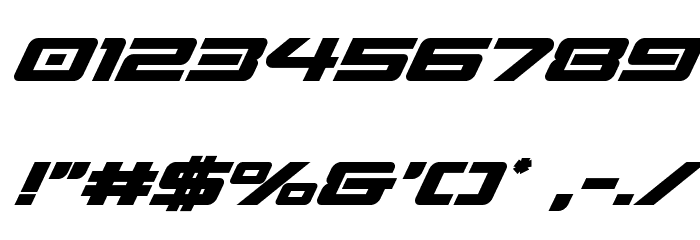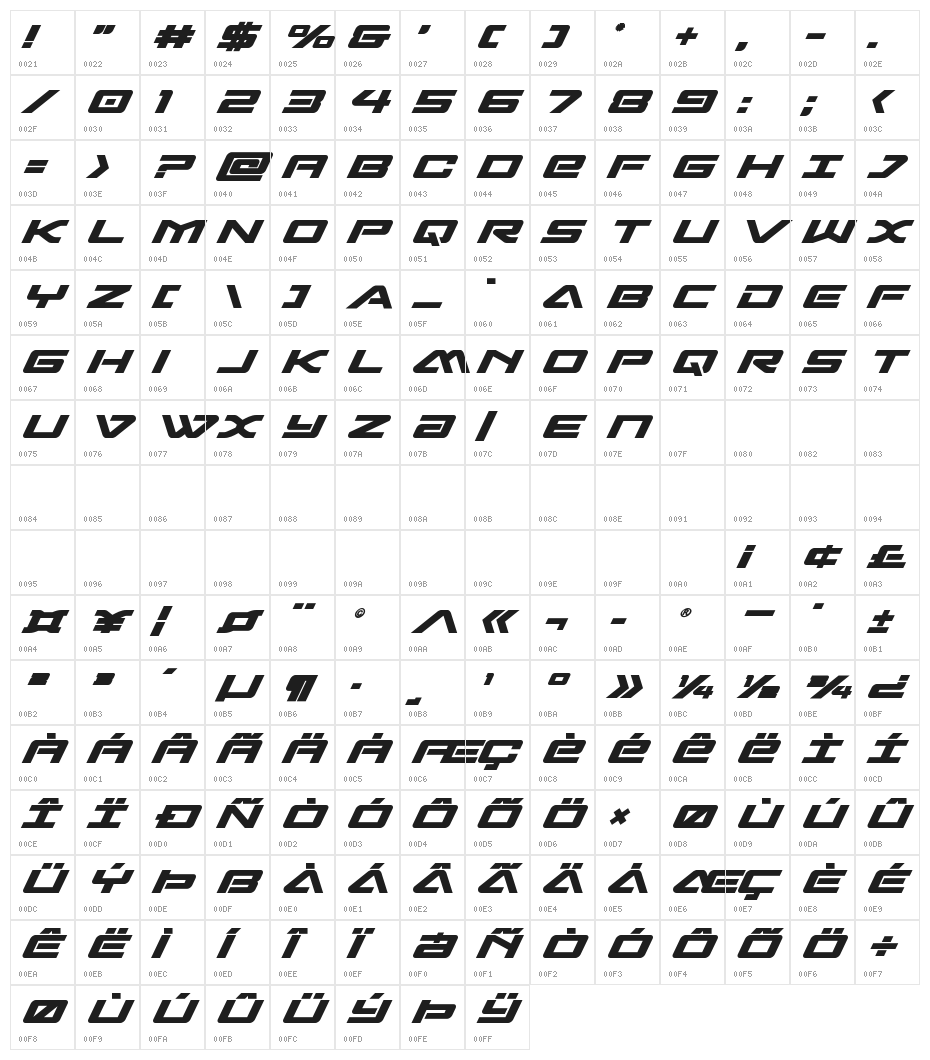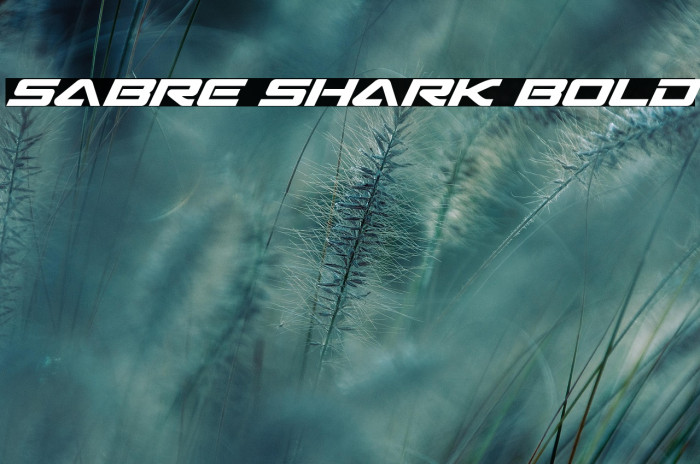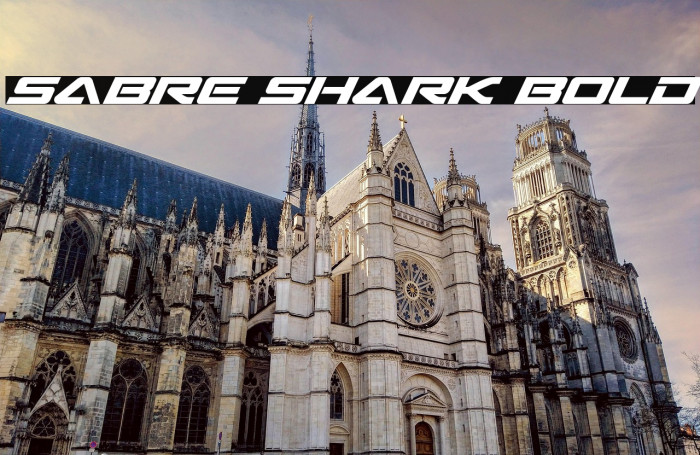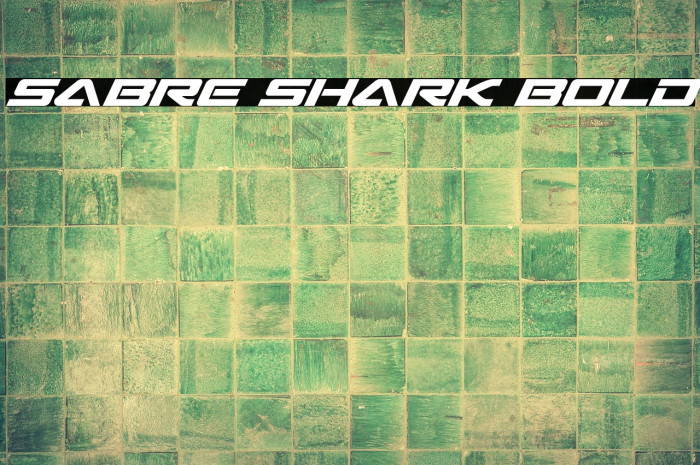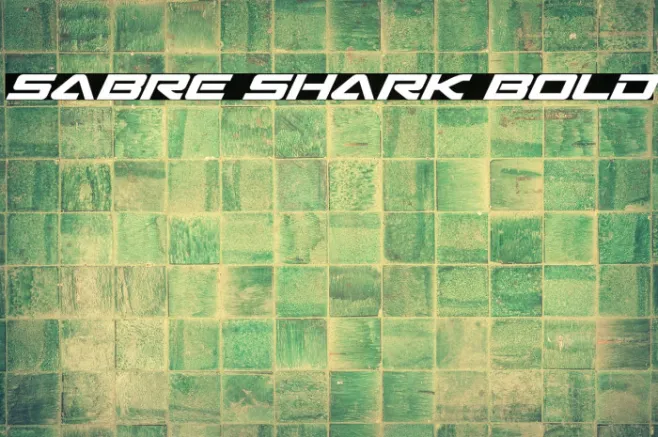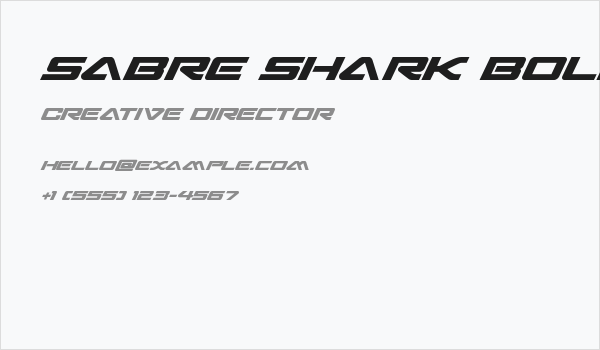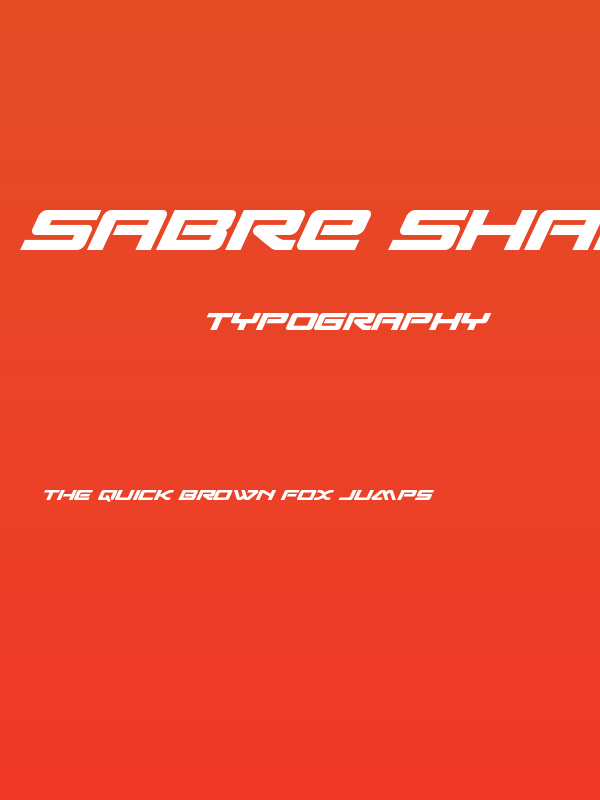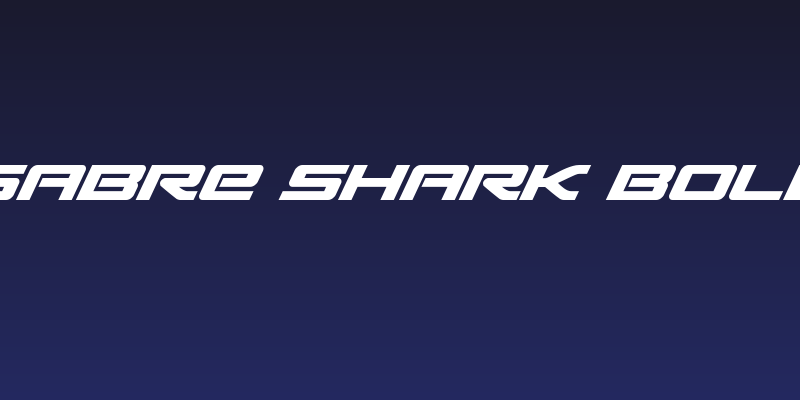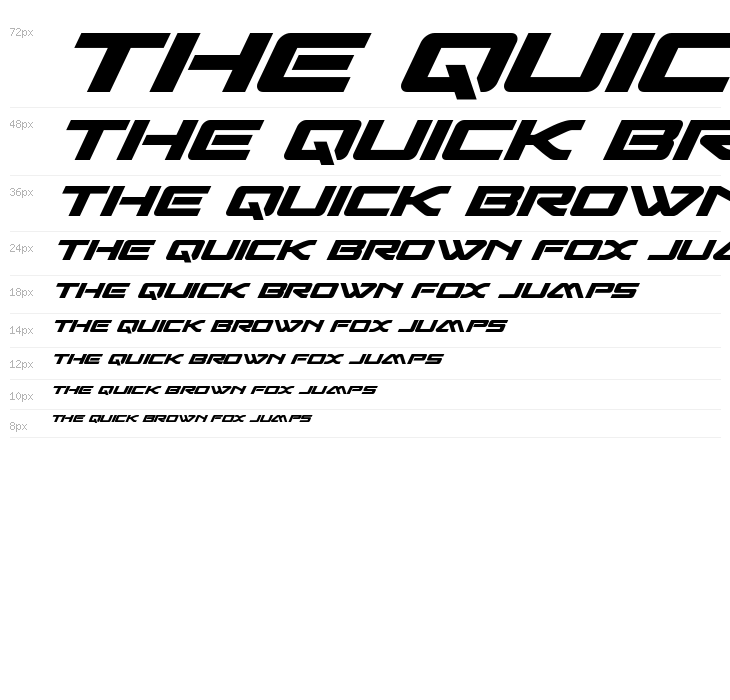
Sabre Shark Bold Font
Sabre Shark Bold Description
This font features a bold, angular design with a futuristic and sporty aesthetic. The characters are sharply defined with a distinct slant, giving a sense of motion and speed. The uppercase letters are particularly striking, with geometric shapes and a consistent stroke width that emphasizes its boldness. The lowercase letters maintain the same angular style, ensuring consistency throughout the typeface. Numbers and special characters are designed to match the overall theme, providing a cohesive look. This font is ideal for projects that require a modern and dynamic appearance.
| Proposed Projects | Ideal for sports branding, automotive designs, video game titles, and futuristic-themed projects. |